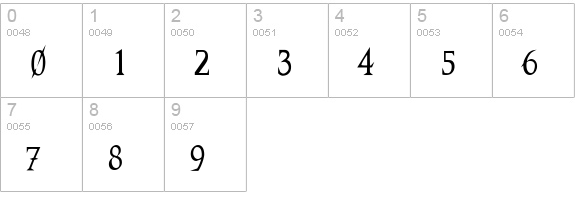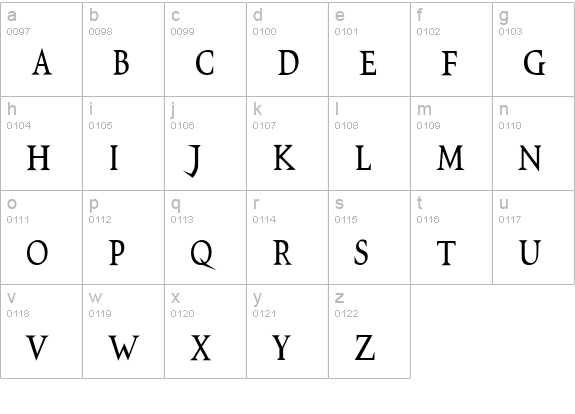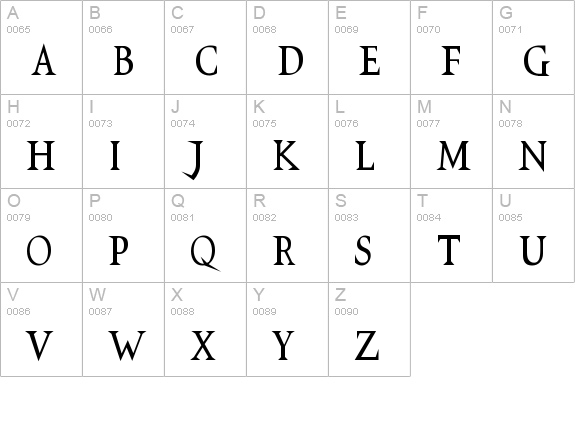
VTCSwitchbladeRomanceTall Font Details
VTCSwitchbladeRomanceTall font is an enchanting and elegant typeface that will add a touch of romance and sophistication to any design project. With its tall and slender letterforms, this font exudes grace and beauty, making it perfect for wedding invitations, love letters, and other romantic-themed designs. The flowing curves and delicate details of VTCSwitchbladeRomanceTall font create a sense of romance and tenderness, capturing the essence of a timeless love story. Its tall and slender proportions make it stand out among other fonts, giving your designs a unique and captivating look. This font is not only visually stunning, but it is also freely available to download at FontsMarket.com. Whether you are a professional designer or simply someone who appreciates beautiful typography, you can now easily access this font and incorporate its charm into your own creations. With VTCSwitchbladeRomanceTall font, you can effortlessly bring a touch of romance to your designs. Whether you are designing wedding invitations, love notes, or any other project that requires an elegant and romantic touch, this font is sure to elevate your design to new heights. Download VTCSwitchbladeRomanceTall font for free at FontsMarket.com and let its timeless beauty inspire your next design endeavor.